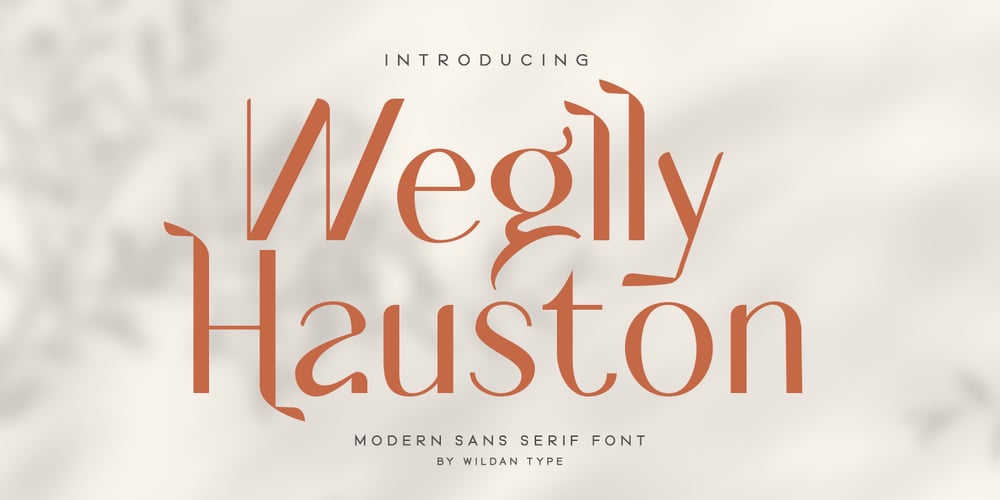
Weglly Hauston Font Family was designed by Wildan Carbon and published by Wildan Type. Weglly Hauston contains 2 styles and family package options. Weglly Hauston is a modern sans serif font with a unique ligature and aletrnate style. A simple serif with special impression. Combaine with high contrast and slat style perfect for feminine logo signs, fashion heads & editorial designs, branding projects, Clothing Branding, packaging, magazine headings, advertising, T-shirts, postcards and much more.